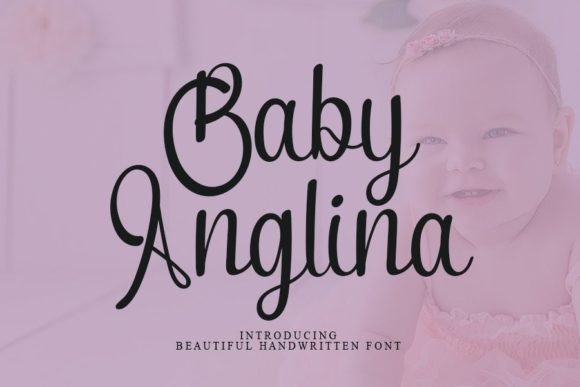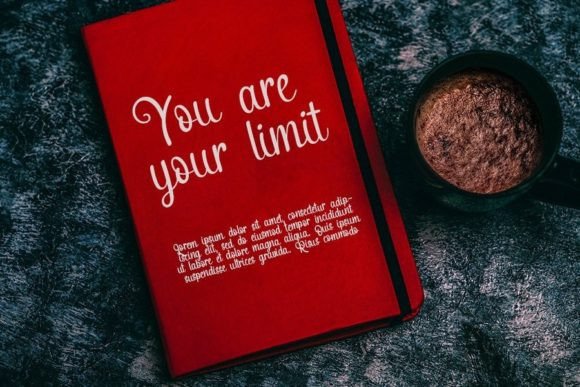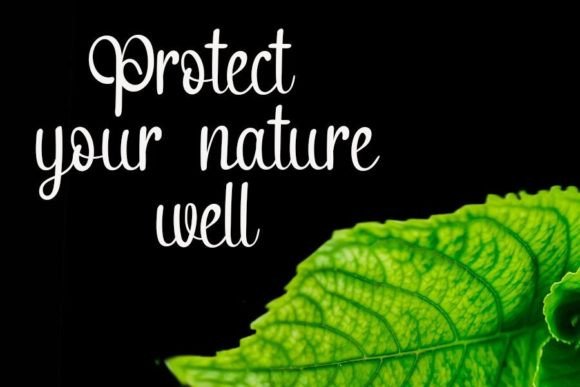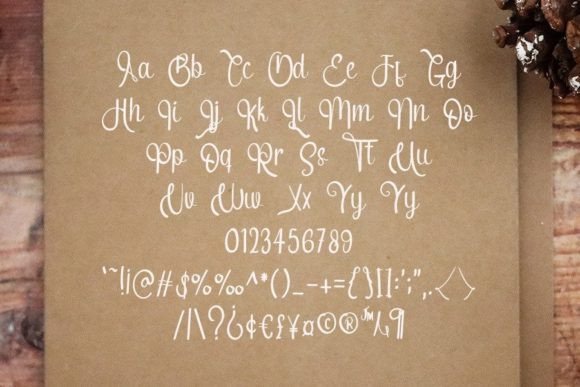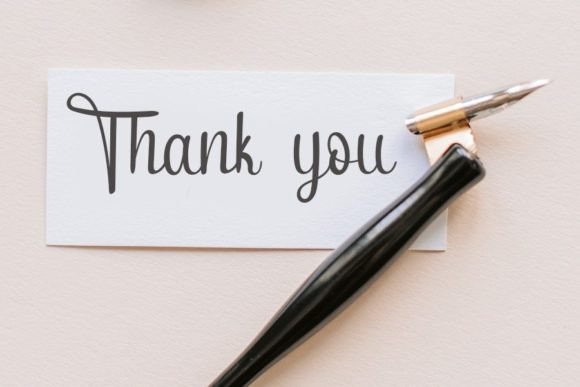
Baby Anglina Font
About Baby Anglina Font
“Baby Anglina” is a beautiful and versatile handwritten font designed to bring a unique and stunning impact to your creative projects. With its distinct feel, this font adds a lovely spark to various design contexts, making it a valuable asset for your upcoming projects.
The versatility of “Baby Anglina” allows it to adapt seamlessly to different design applications. Whether you’re working on branding materials, invitations, social media posts, or any other creative project, this font is crafted to add a touch of beauty and uniqueness.
Imagine using “Baby Anglina” on a poster, where its stunning impact enhances the visual appeal and captures the attention of your audience. Picture it on a wedding invitation, adding a lovely spark to the romantic atmosphere of the celebration. The font’s versatility makes it suitable for a wide range of creative ideas.
As you incorporate “Baby Anglina” into your design projects, let its beautiful and versatile handwritten style be the key element that elevates your work. Whether you’re creating logos, branding materials, or any other design, “Baby Anglina” invites you to infuse your projects with its stunning impact, ensuring that your creations stand out with a touch of beauty and uniqueness.